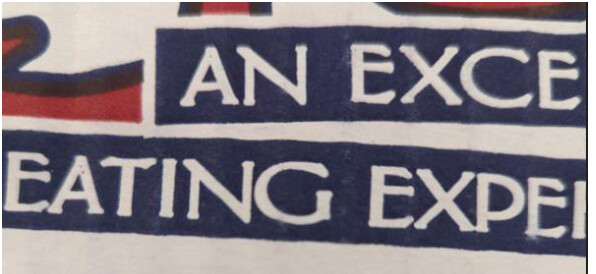
anyone know what font this might be?
I swear this is an altered version of Carlton I’m getting the feeling a stroke has been added.
(it looks like carlton with an outline stroke added and maybe the letters expanded a bit.)
looks like portland roman bold as well, with an outline stroke…